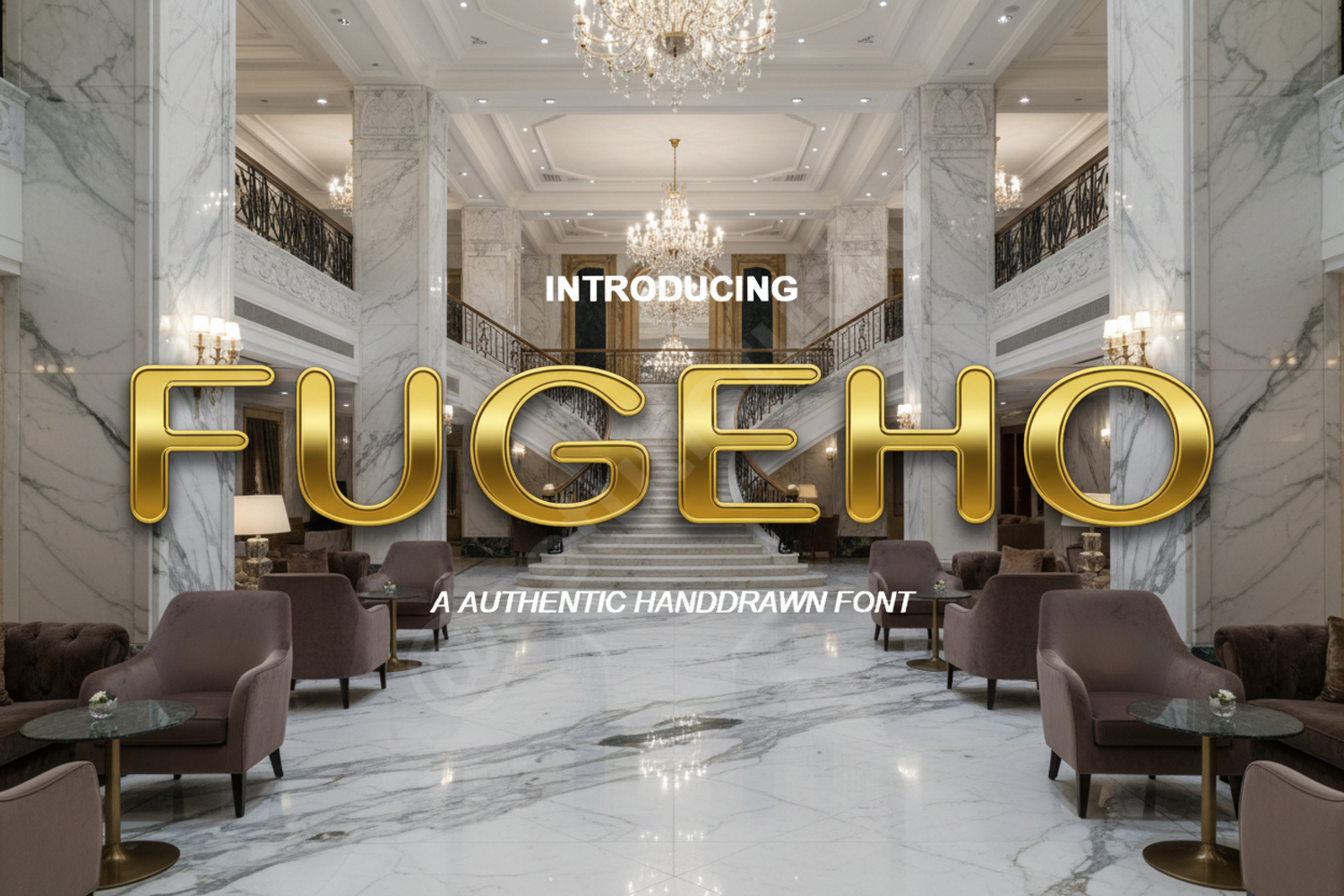
Fugeho - Sophisticated Modern Geometric Sans
Fugeho
Fugeho is a premium modern sans-serif typeface meticulously crafted to balance contemporary aesthetics with timeless readability. Its clean lines and balanced proportions make it an essential tool for designers seeking a professional edge in their creative projects.
- Standard Ligatures and Alternates
- Premium Branding and Visual Identity
- High-end Editorial Layouts and Magazines
- Modern Website Headers and User Interfaces
- Minimalist Social Media Graphics
- Professional Corporate Presentations
- Luxury Packaging Design